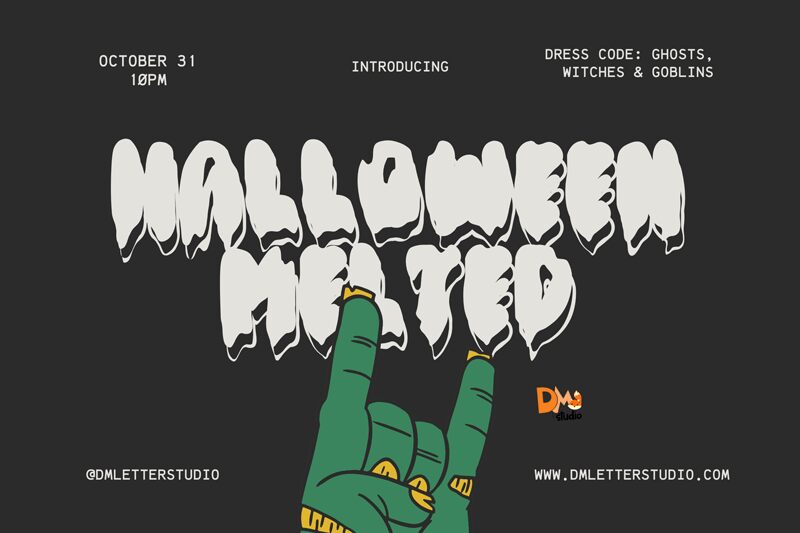
Halloween Melted font by DM Letter Studio - Dimas Prasetyo is a free font inspired by horror films and their powerful way of revealing fear. The characters have a sleek yet distorted appearance as they appear to be melting and dripping away. The font overall is very themed and expressive.
Halloween Melted is great for your spooky and horror event posters, costumes, photography, and so on. It can also work in illustration designs as well as branding, packaging, product labeling, and more.